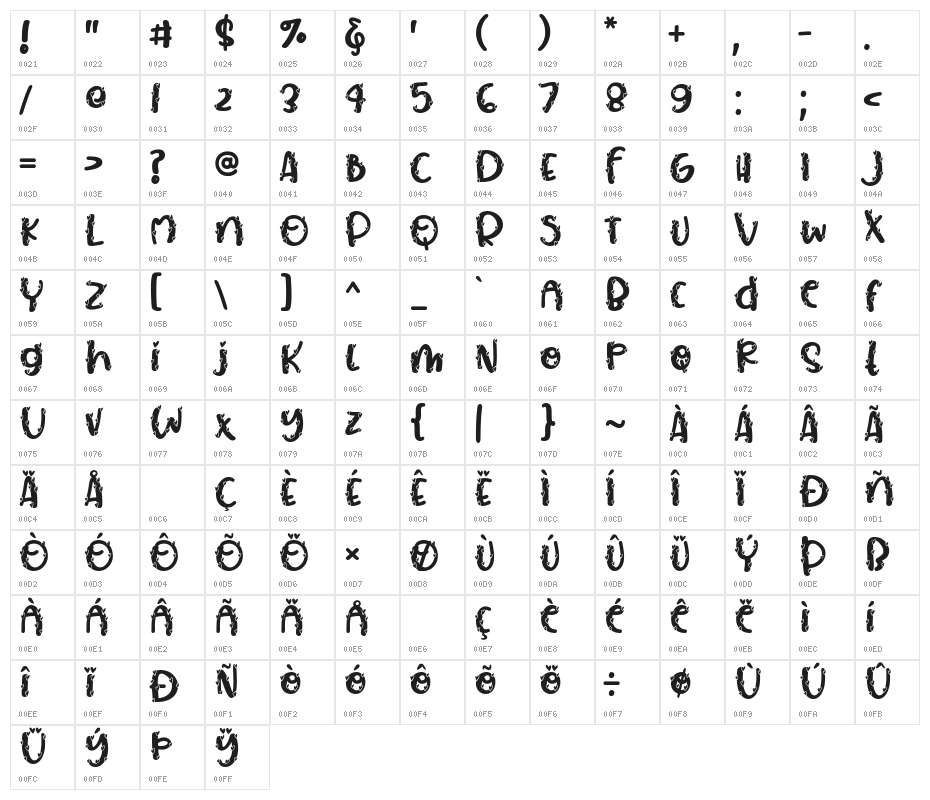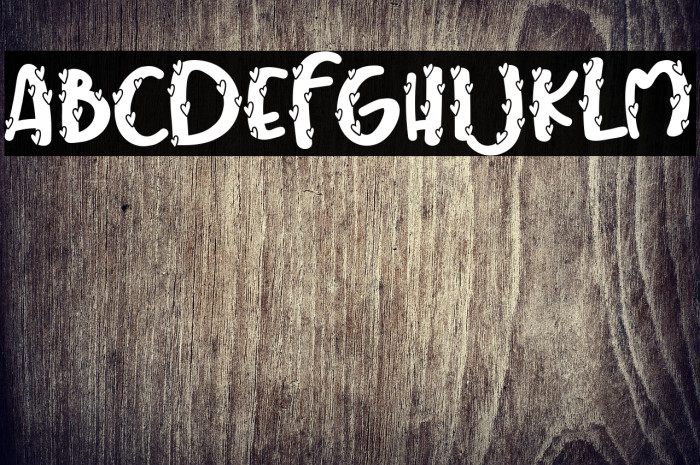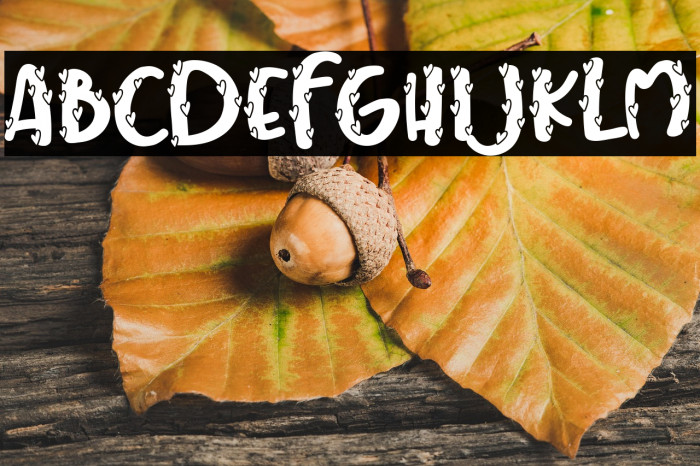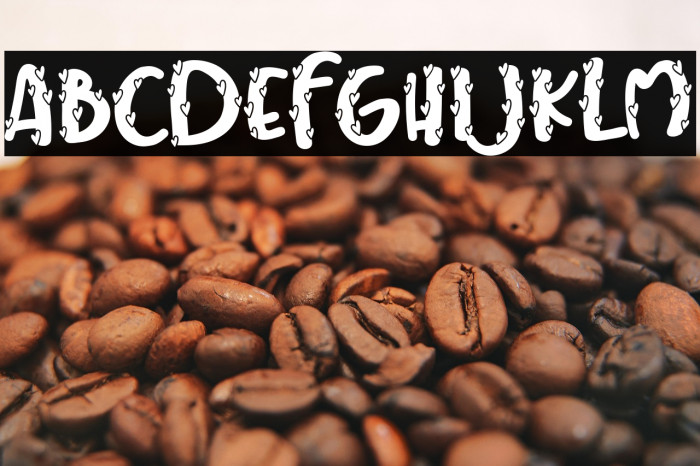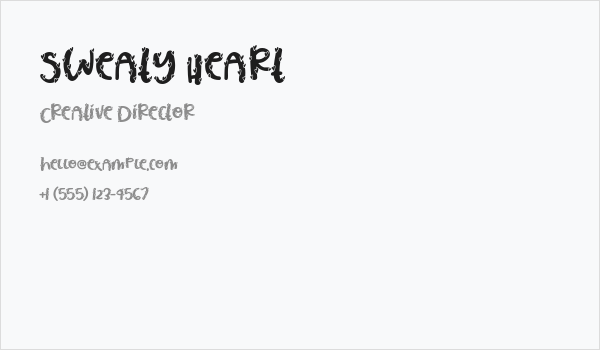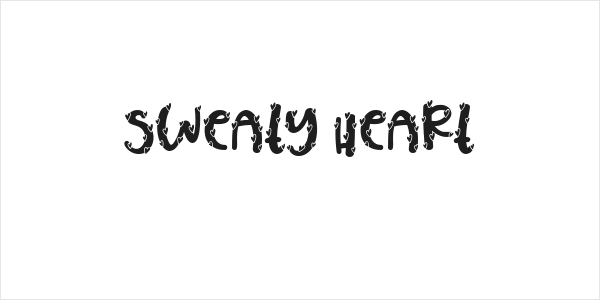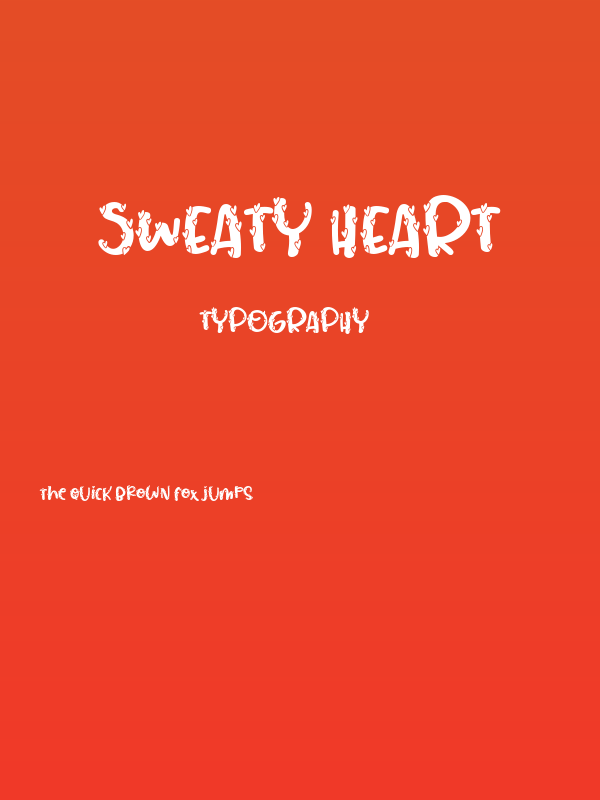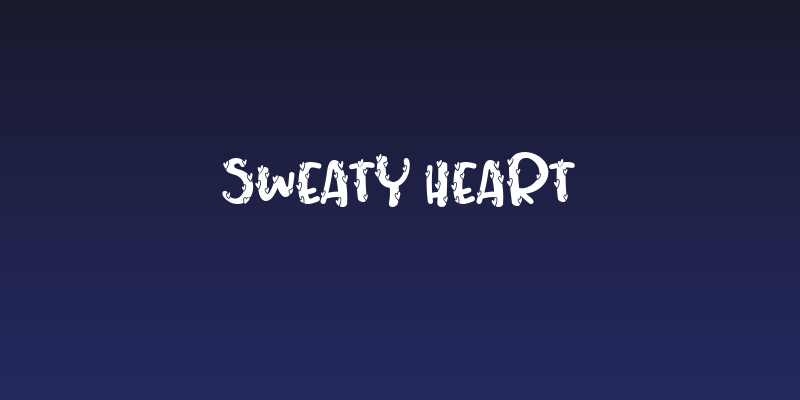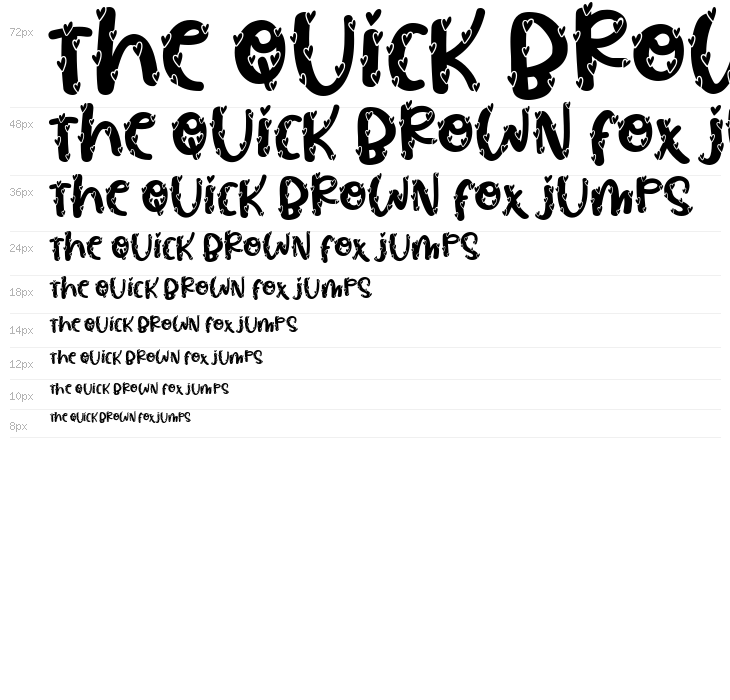
Sweaty Heart Font
Sweaty Heart Description
This playful and whimsical font features bold, rounded characters with unique heart-shaped embellishments integrated into each letter and number. The design is consistent across both uppercase and lowercase letters, as well as numerals and special characters, creating a cohesive and charming appearance. The font's thick strokes and decorative elements make it stand out, while maintaining readability. The heart motifs add a touch of romance and fun, making it ideal for projects that require a lighthearted and affectionate tone.
| Overall Style | Playful, Romantic |
| Proposed Projects | Ideal for Valentine's Day cards, wedding invitations, playful branding, children's books, and romantic-themed events. |